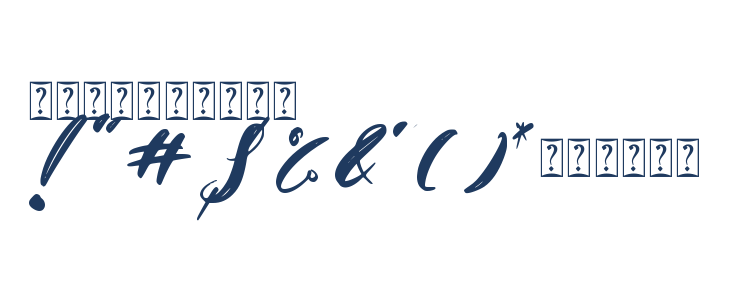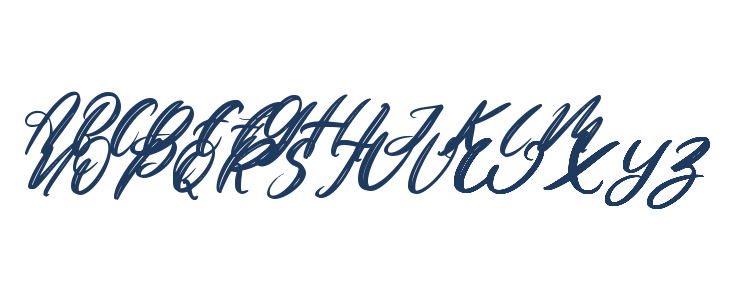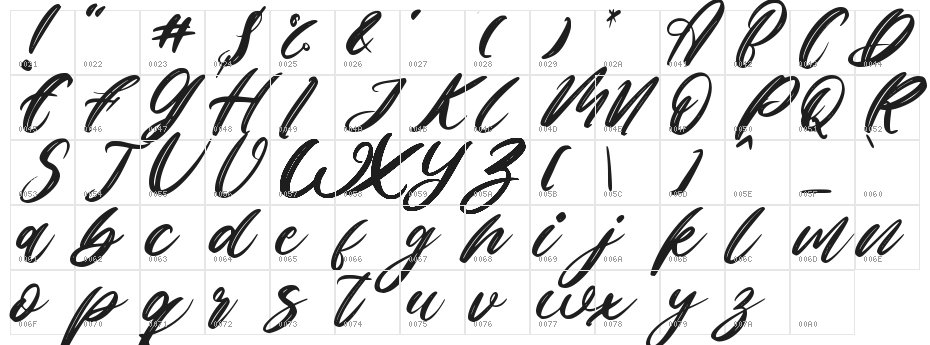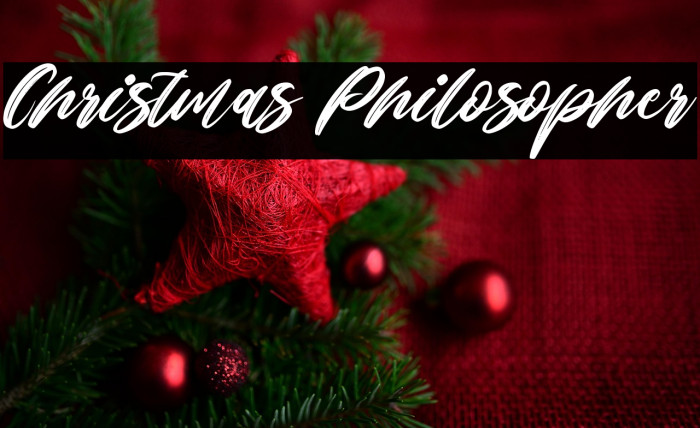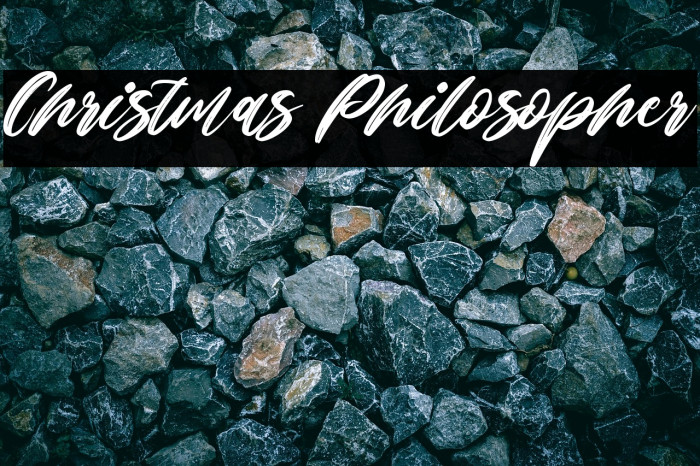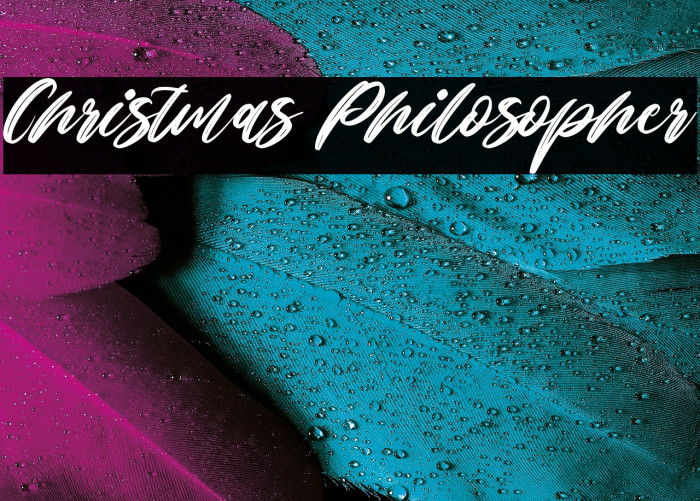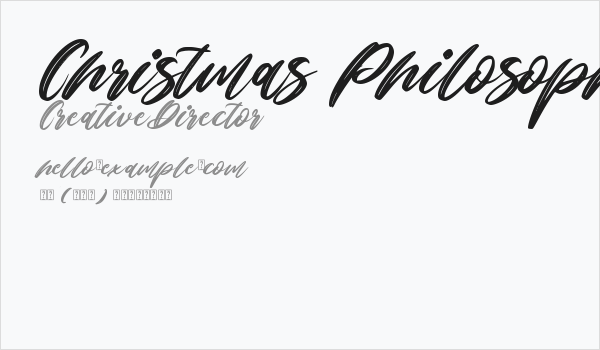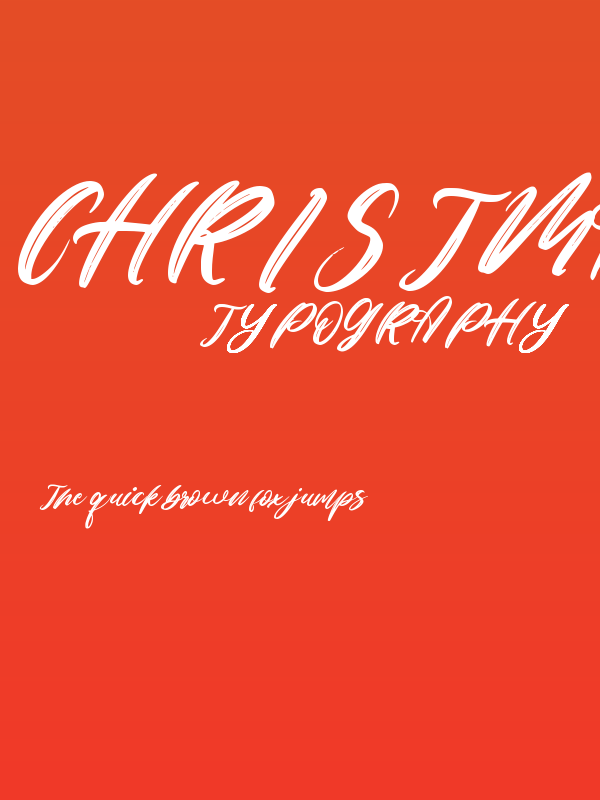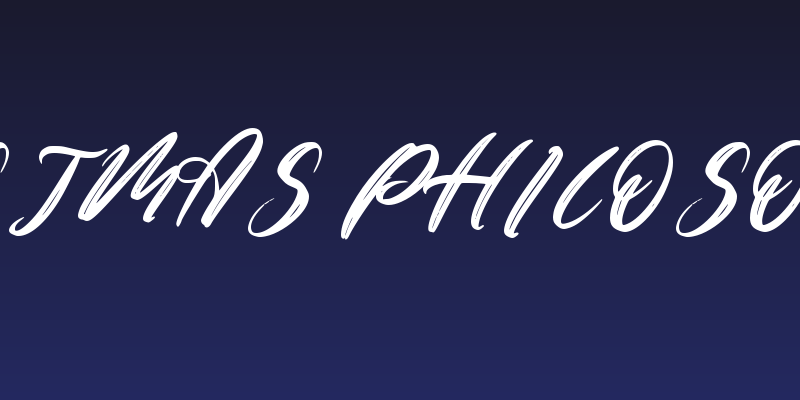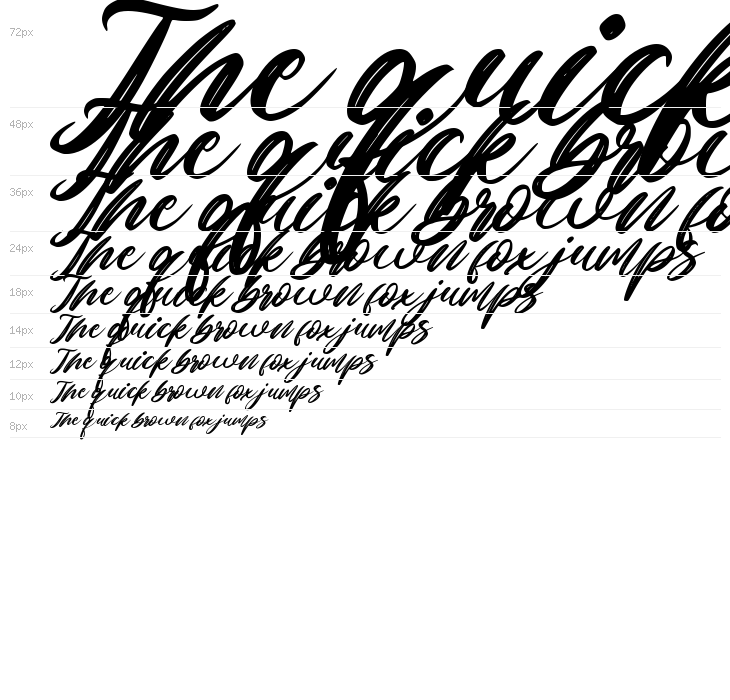
Christmas Philosopher Font
Christmas Philosopher Description
A bold, expressive script font with fluid, hand-drawn strokes and a modern calligraphic style. The characters feature dramatic curves, variable stroke thickness, and a lively, energetic appearance. Both uppercase and lowercase letters are highly stylized, with some letters featuring exaggerated loops and flourishes.
| Overall Style | Decorative, Modern, Festive |
| Use Case | Headlines, Logos, Invitations, Decorative text |
| Proposed Projects | Greeting cards, holiday invitations, branding, social media graphics, festive packaging. |